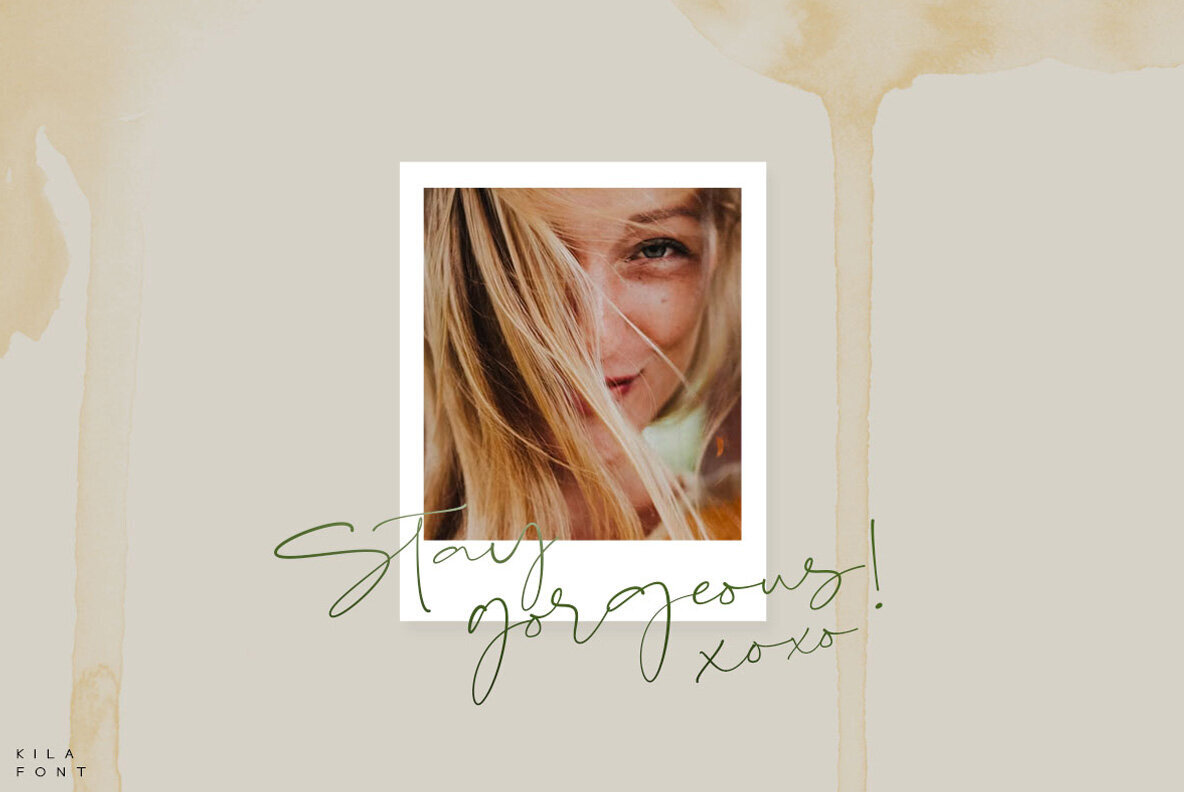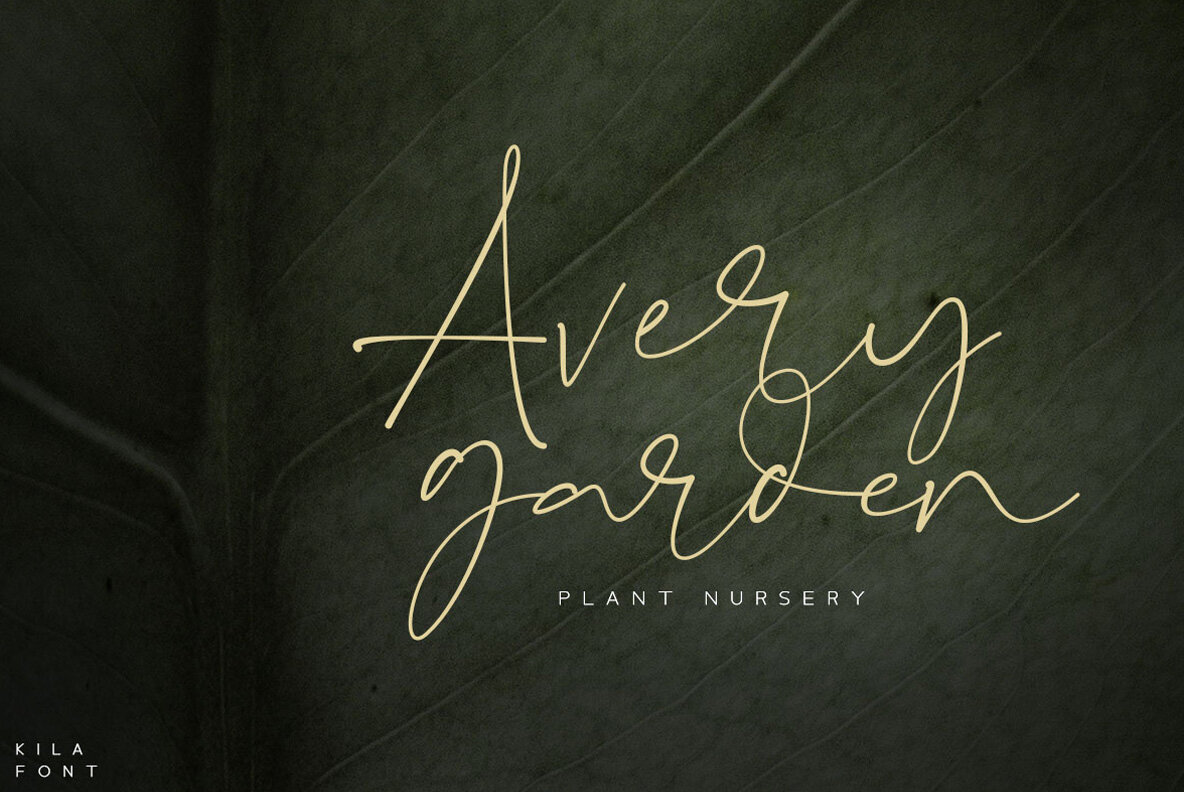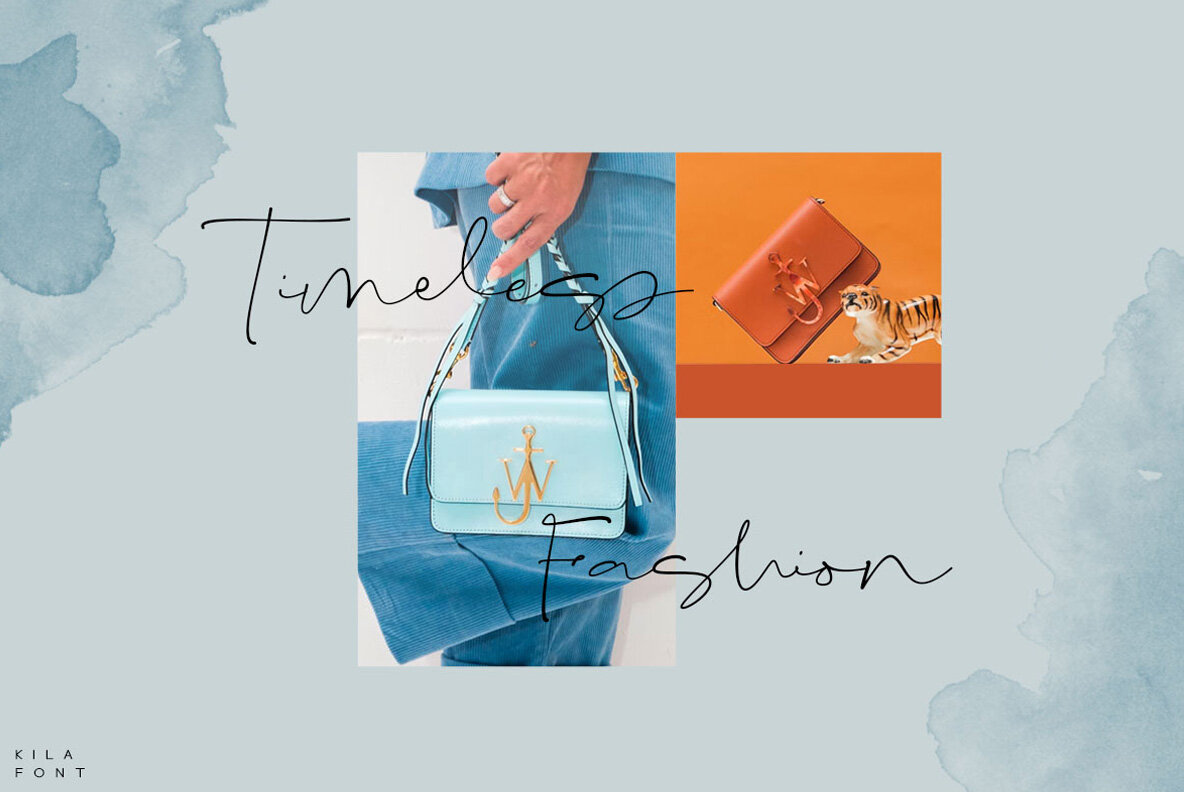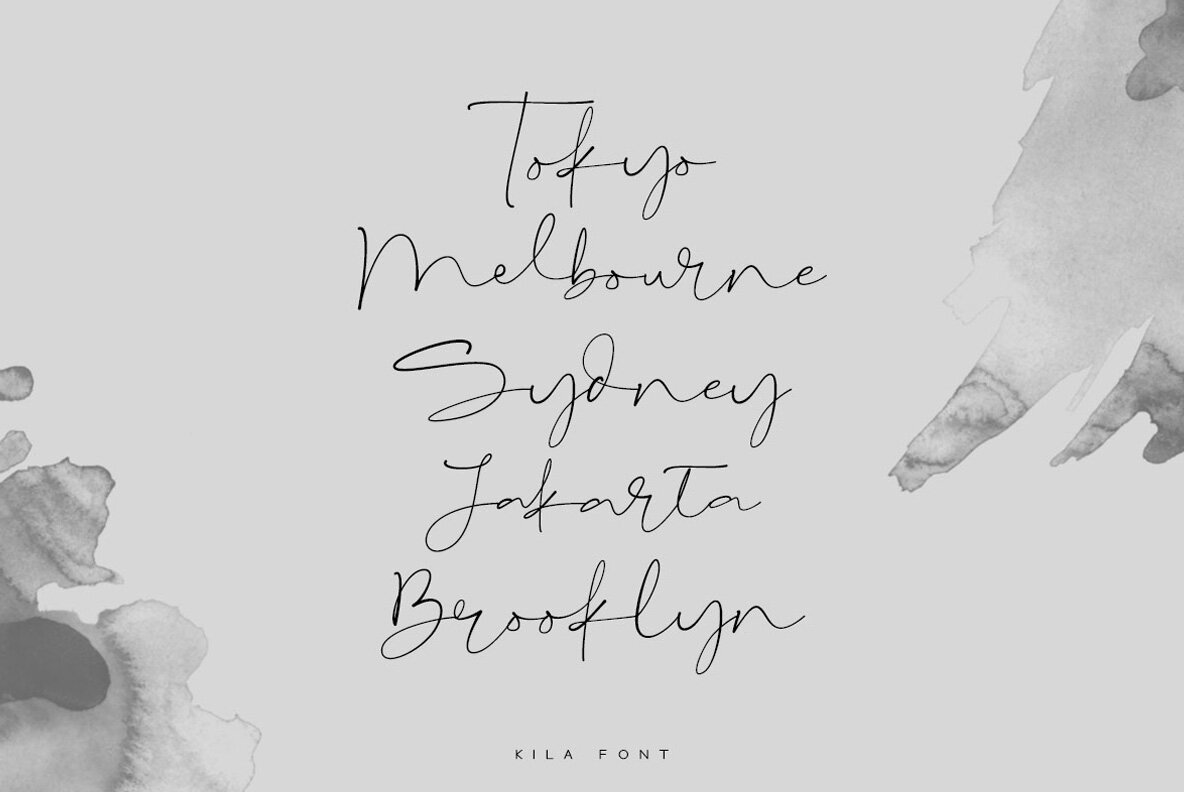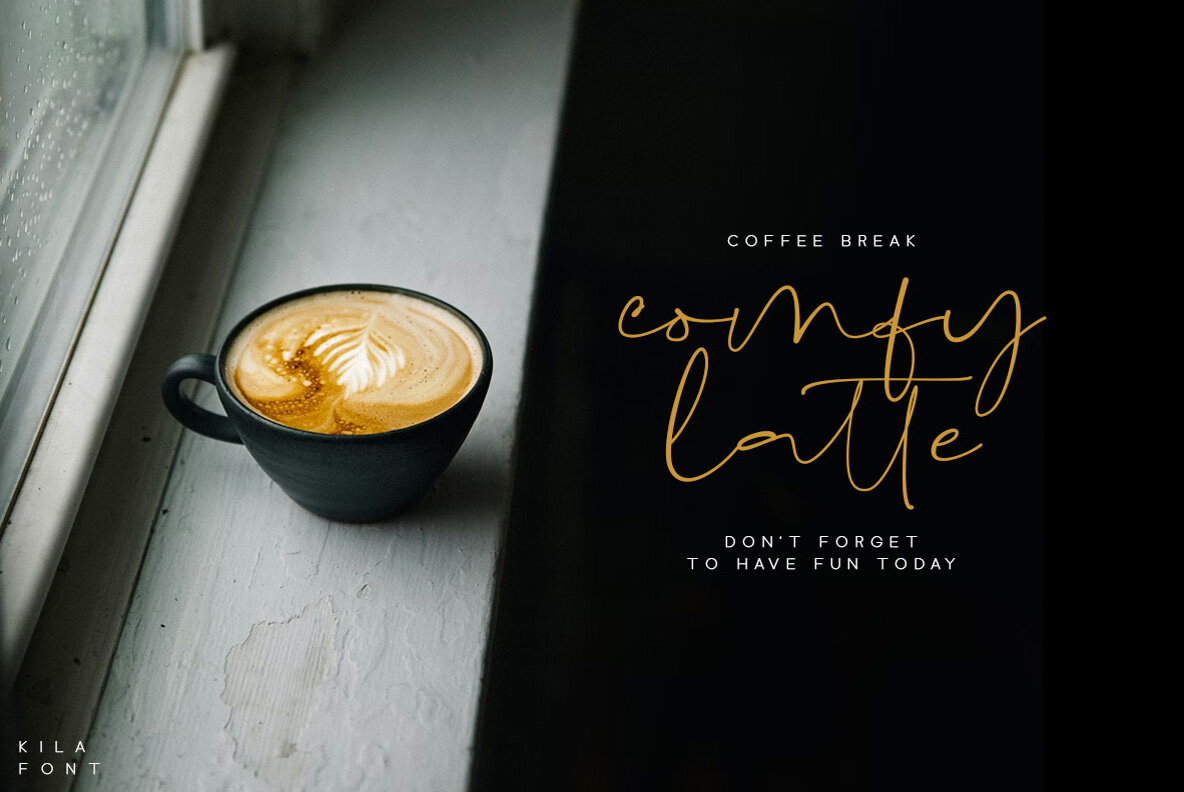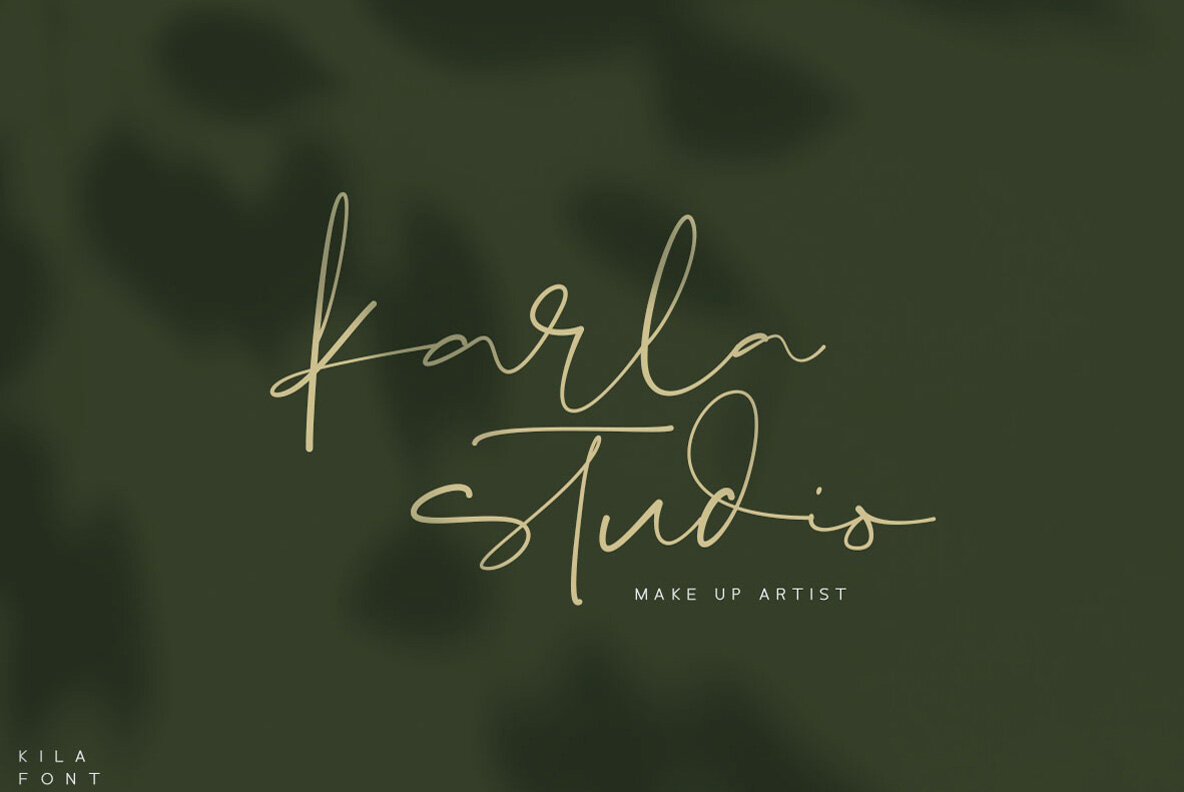
Kila Font
Kila Regular
Kila captivates with its fluid script design, meticulously fashioned to enhance any text with beauty and sophistication. Its contemporary style is ideal for diverse applications, including photography, watermarks, quotes, and blog headers. This font seamlessly adapts to projects involving poster designs, wedding elements, branding, and logo creation, making it an excellent choice for fashion, apparel, stationery, and invitations. Features: Explore the versatility of Kila by experimenting with its alternate glyphs to bring a unique flair to your designs. Its support for an array of foreign languages ensures that your text can resonate globally, whether for personal projects or professional endeavors.Kila: A Modern Script Font with Elegant Appeal
Unleash Your Creativity with Kila